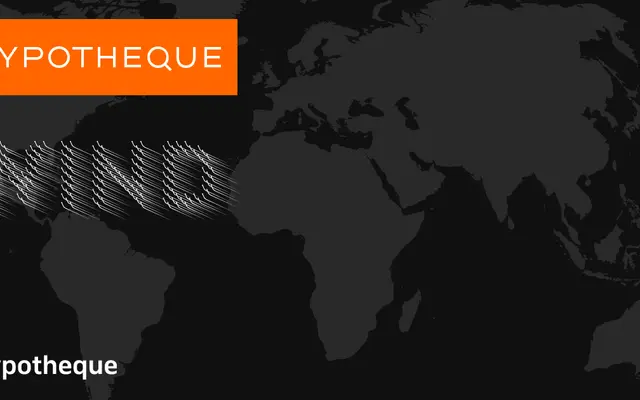
Wind specimen from Typotheque
A directional variable typeface from Typotheque structured around compass-point stress axes, with named cuts including Mistral, Foehn, Leveche and Sirocco.
Each style in the Wind family is named after a real-world wind and corresponds to a compass direction, NE, SE, SW or NW, governing the angle of stress applied to letterforms. The variable version allows layering of opposing cuts to produce blended or animated typographic effects. Suited to display work where directional energy and optical tension are the point.
Wind is a directional variable typeface built around axis-based slant and stress variations named after winds, placing it firmly in the display category with an experimental variable font structure.